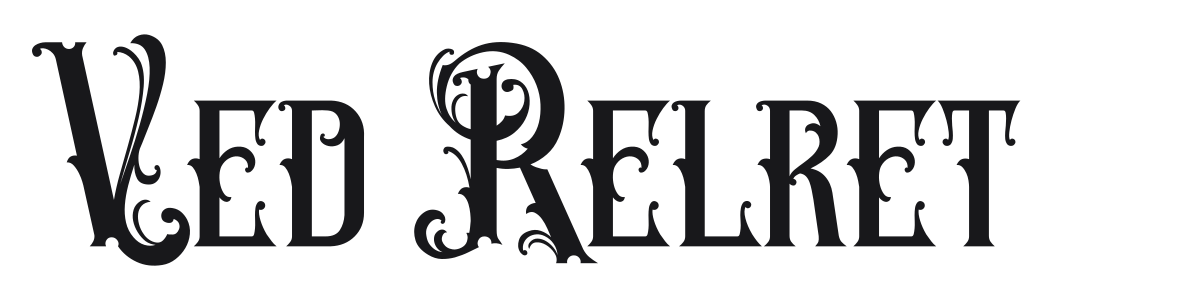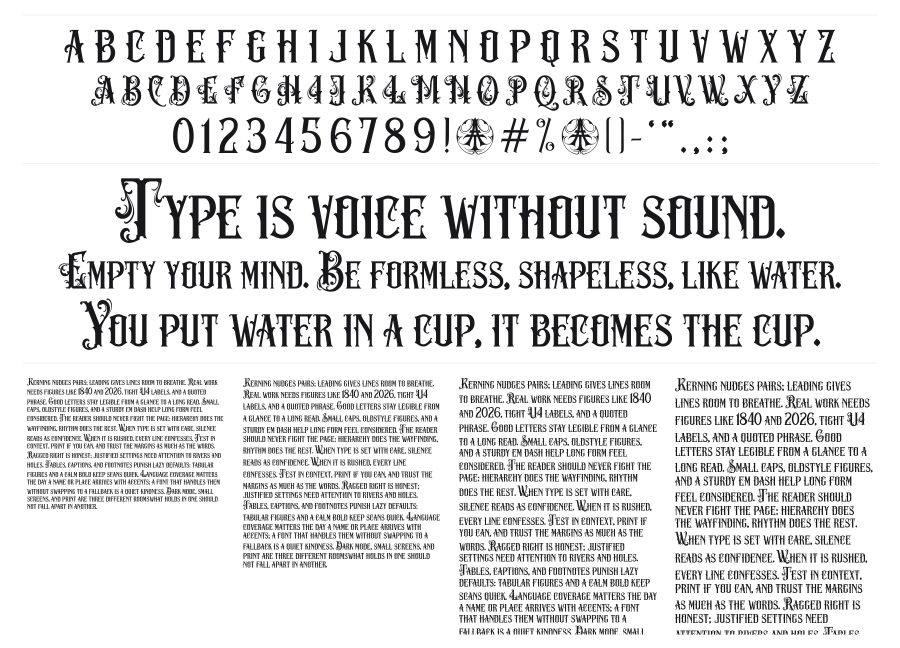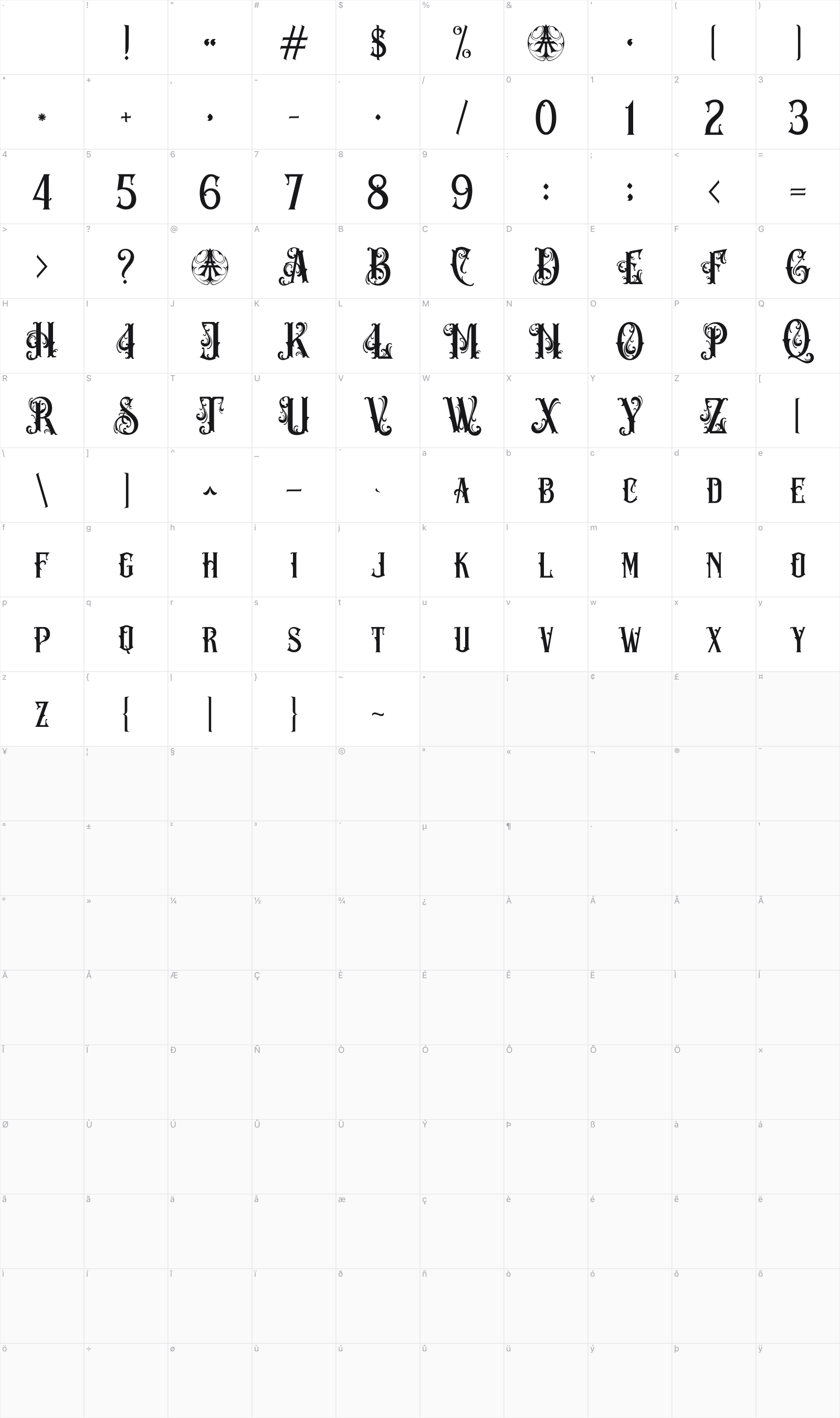
Ved Relret
Ved RelretLicense is a tall condensed display serif with Victorian wood-type roots and dramatic stroke contrast. Ornate bracketed serifs and decorative ball terminals give it a circus-poster theatricality that works well at large sizes for headlines, labels, and branding. The tight spacing and heavy dark color make it feel commanding on the page.